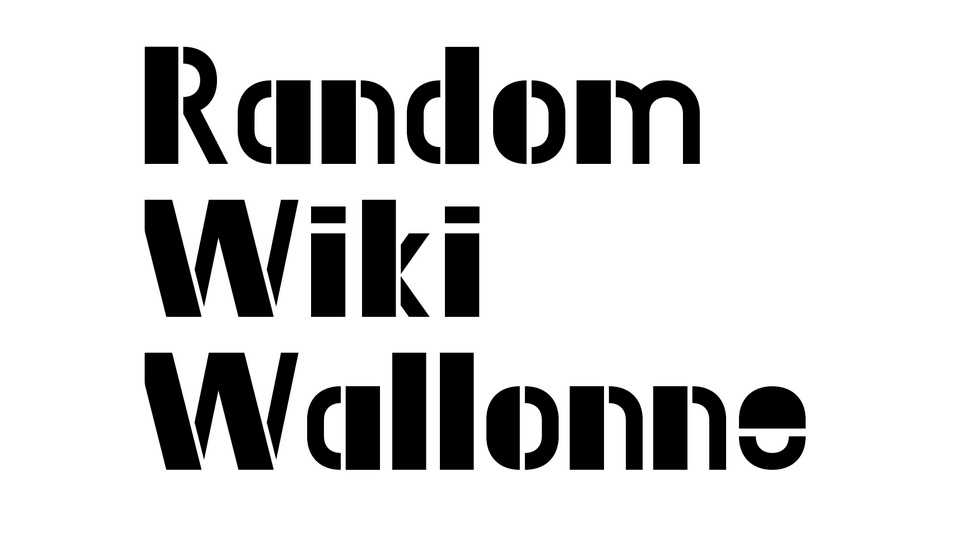
Download RandomWiki Wallonne font, a display typeface based on a randomly selected Wikipedia article and inspired by Rue Édouard Remouchamps. RandomWiki Wallonne was created during a type design initiation workshop given by Lucas Descroix (Bonjour Monde) in February 2023.
Designer: Louna Klis